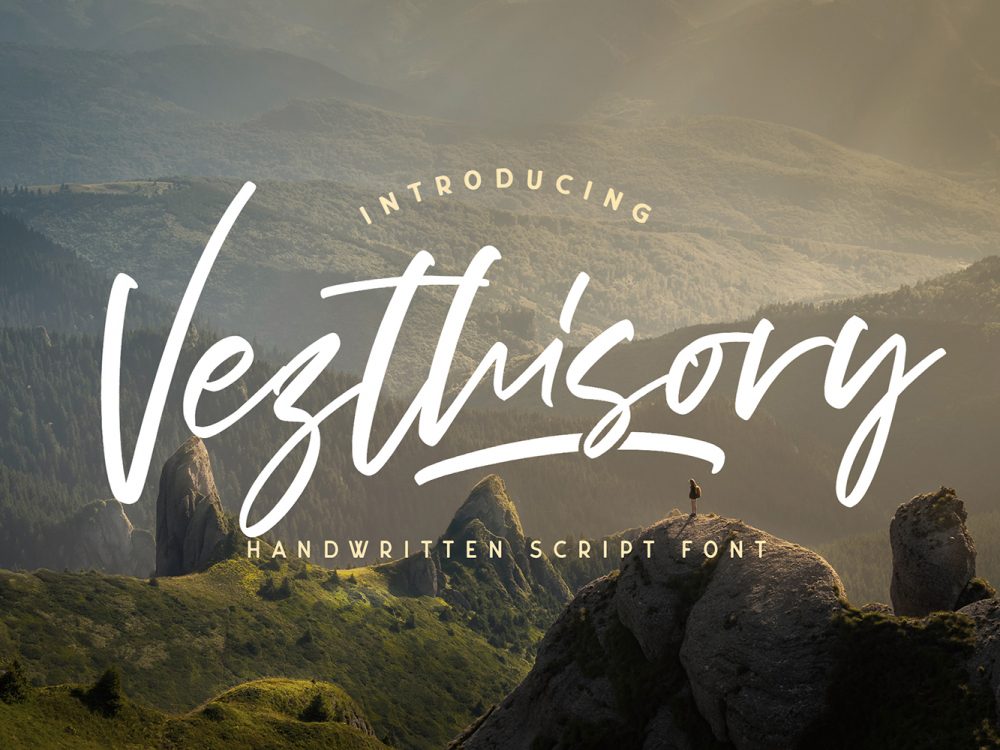
Vezthisory Free Font
Vezthisory Free Font is a stylish handwritten typeface that stands out for its elegant calligraphic style. This font helps you create unique design projects and enhance your professional level. Use this font to create memorable posters, wedding invitations, cards, branding, flyers, and more. If you like it don’t forget to check out the full version.